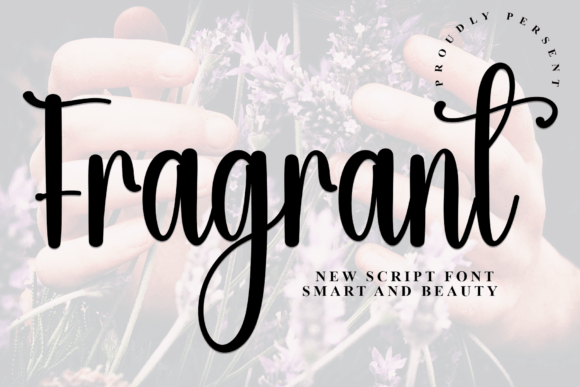
In this digital age, where communication reigns supreme, let your words dance with grace and elegance, unveiling a tale of love, passion, and timeless charm. Discover Fragrant Font, an exquisite script font that captivates hearts with its contemporary allure and impeccable form. Inspired by the enduring beauty of classic calligraphy, Fragrant Font is a harmonious blend of balance and diversity, designed to elevate the visual appeal of your projects to new heights. With Fragrant Font, your words become art, a reflection of your emotions and intentions. Each letter, meticulously crafted with precision, flows effortlessly from your keyboard, leaving a trail of sophistication and charm. Fall in love with the versatility of Fragrant Font, a font that adapts seamlessly to a myriad of creative endeavors. Whether you're crafting a heartfelt letter, designing an enchanting invitation, or creating a captivating social media post, Fragrant Font will elevate your words, leaving an indelible mark on the hearts of your readers. Unleash the power of Fragrant Font today, and embark on a journey where your words dance with passion, your ideas ignite imaginations, and your creativity knows no bounds.